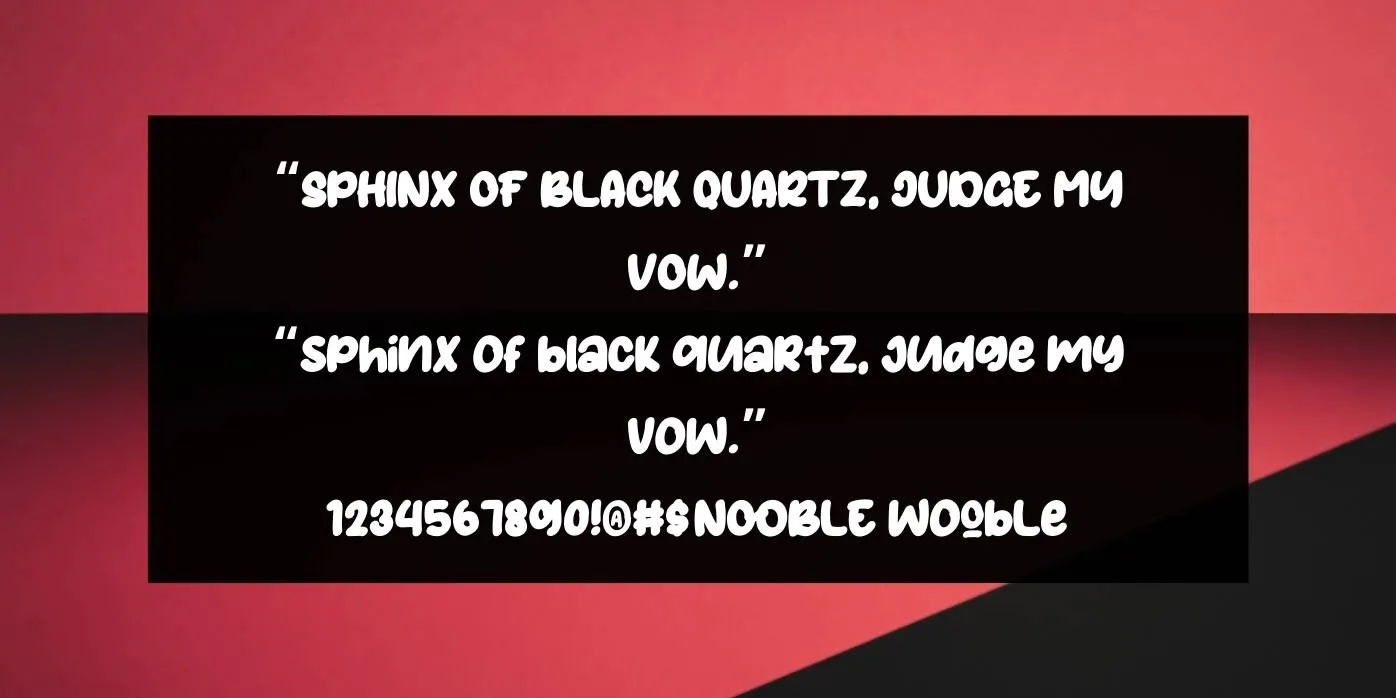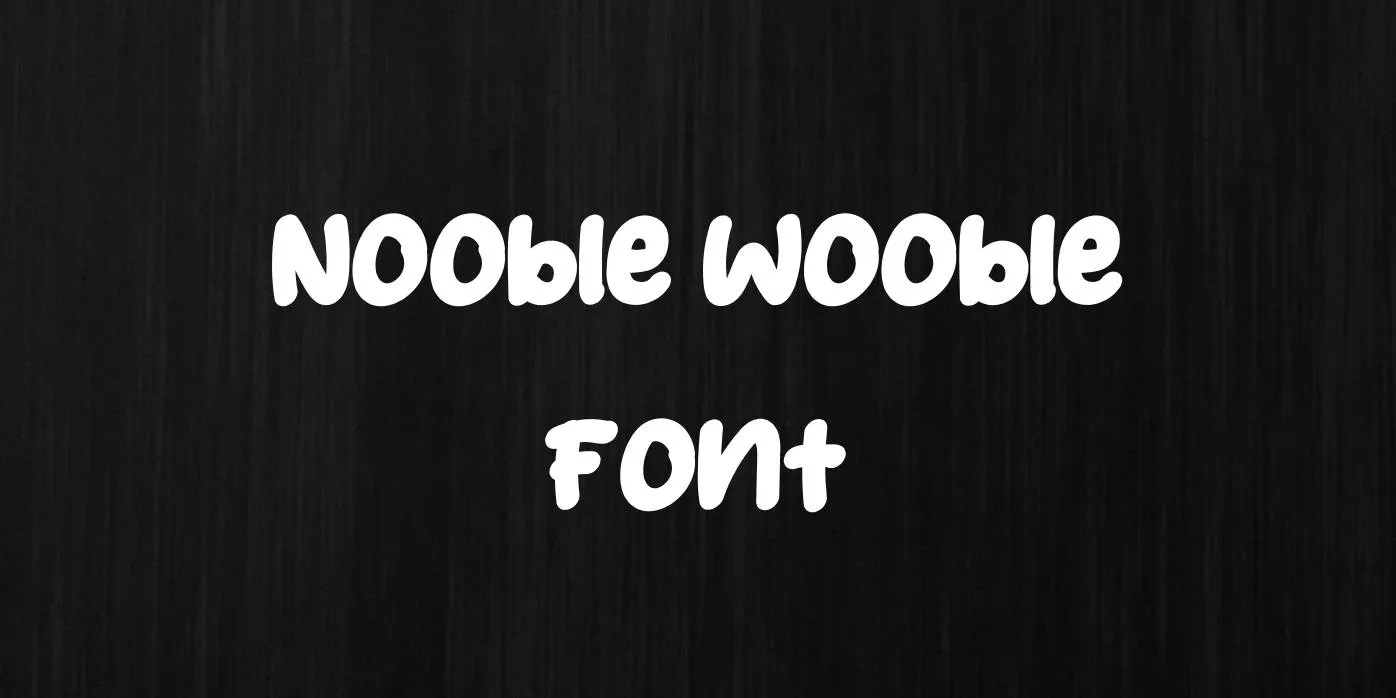
Nooble Wooble Font
Nooble Wooble Font is a fancy typeface that was designed in 2006 by noted typeface designer Rian Hughes. The name of the font is a combination of the word “noob”, which is commonly used to describe someone who is inexperienced, and “wobble”, which describes the wavy, distorted appearance of the font. This Font was designed to be used for headlines and other short blocks of text. It is perfect for creating a sense of chaos or confusion and can be used to add an element of fun to any design.